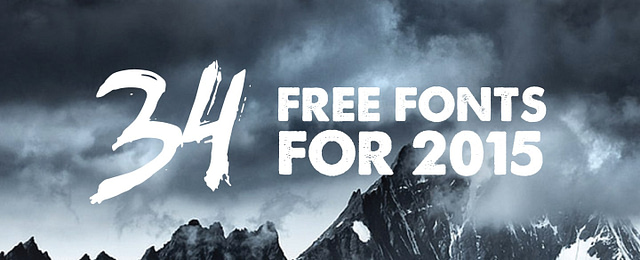
34 free fonts for 2015
1. Akula Script by Anna Ivanir – Download
Free amazing fonts 2015
2. Wisdom Script – Free Download
Free Fonts Script Wisdome
3. Dense Regular – Free Download
Dense Free Font - Download 2015
4. Nevis Bold – Free Download
Nevis Free Font Download
5. Bebas Neue – Free Download
free-font-bebas-download
6. Poly Italic – Free Download
Poly Italic - Free Font Download
7. A Love of Thunder – Free Download
Textured font,  Thick Slab sans-serif font -free download
8. Liberator – Free Download
Free Download - Liberator font
9. Langdon – Free Download
Langdon font- free download
10. Trade Winds – Free Download
Free crazy font
11. Dker Poster – Free Download
Hand-lettering font Dker Poster
12. Amplify (For Personal Use Only) – Free Download
Amplify font - Marshall Rock band - logo font
13. Libre Baskerville – Free Download
Libre Baskerville - Free Font download
14. Carton – Free Download
Carton font - Free Download
16. Vincent – Free Download
Vincent Fotn -download free
17. Road Movie – Free Download
Road Movie Font Download
18. Parker – Free Download
Handlettering font - download free font
(By James Lafuente)
19. Cac Lasko Even Weight FG – Free Download
free download - script font 2015
20. Clear Line – Free Download
Handwriting font - free download
21. Anaeve – Free Download
Anaeve Free font download
22. A Day Without Sun – Free Download
A Day Without Sun - free download
23. Mix Modern Solid – Free Download
Mix Modern Solid - free download font like optima or futura
24. Miniver – Free Download
Miniver Free font download
25. Drew Handwriting – Free Download
Drew Handwriting - free handwriting font download - hand-lettering - hand-painted fonts
26. Cruickshank – Free Download
cruickshank - beautiful modern fonts 2015
27. Novito Nova – Free Download
Novito Nova free font download
28. Crimson Petal – Free Download
Crimosn petal f-ree font free font
29. That’s Font Folks! –   Free Download
that's font folks - free download
30. Captain’s Talk – Free Download
Captains Talk free download - fonts 2015
31. Dolenzo – Free Download
Eroded Font - Download free
32. Panforte –  Free Download
Panforte free font download
33. Modified Teutonic – Free Download or Free Download Location 2
Modified teutonic
– Original Teutonic is here
34.  Mix Serif – Free Download
Mix Serif Free Download